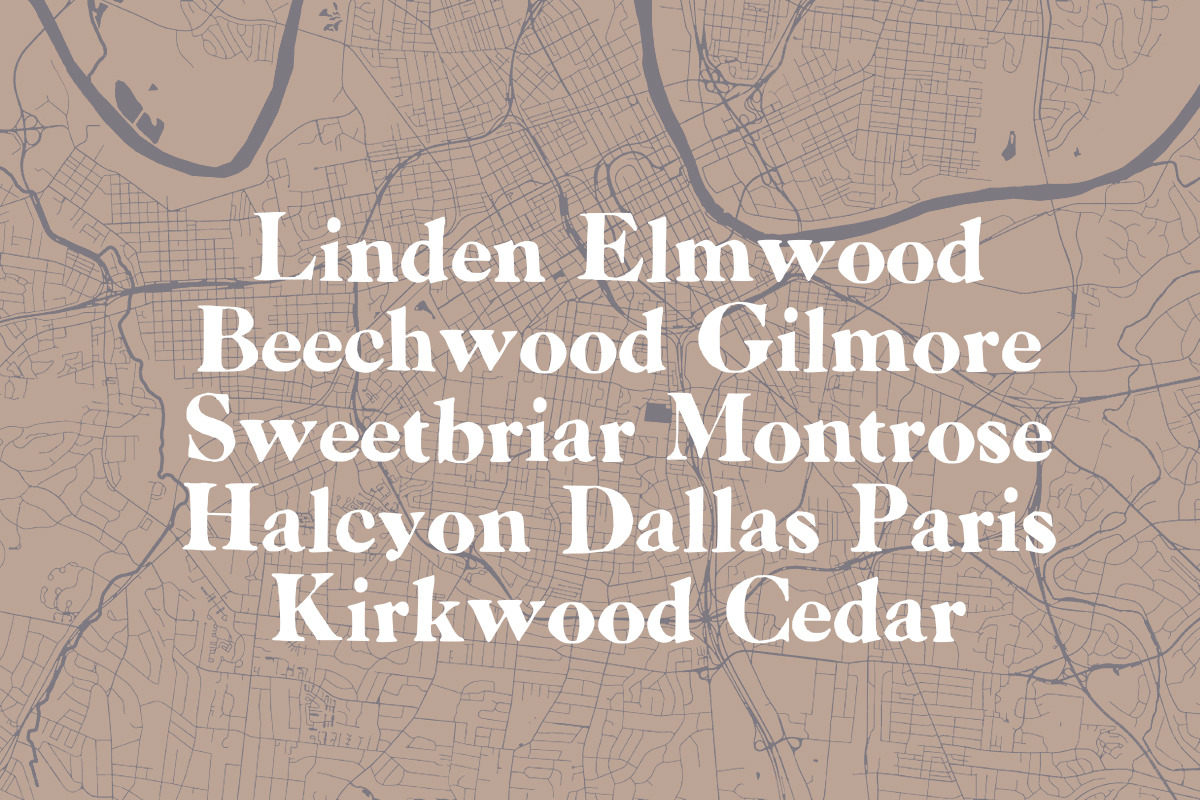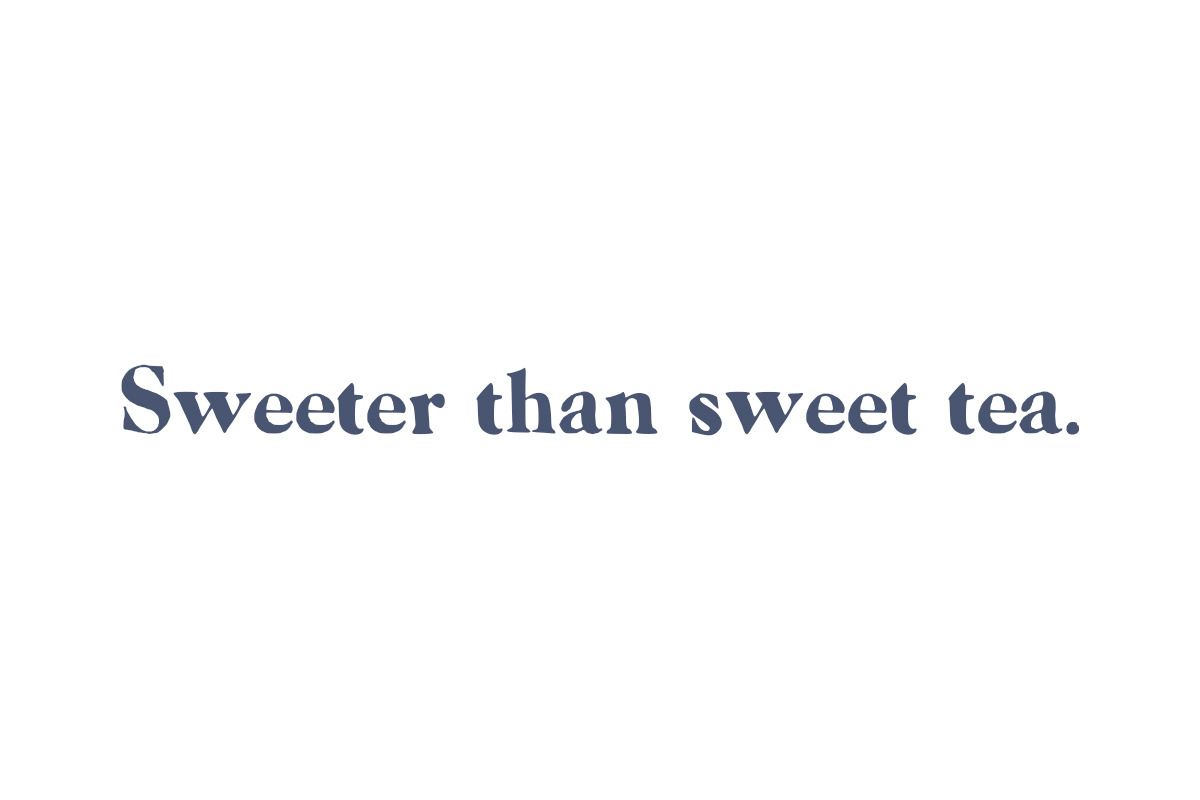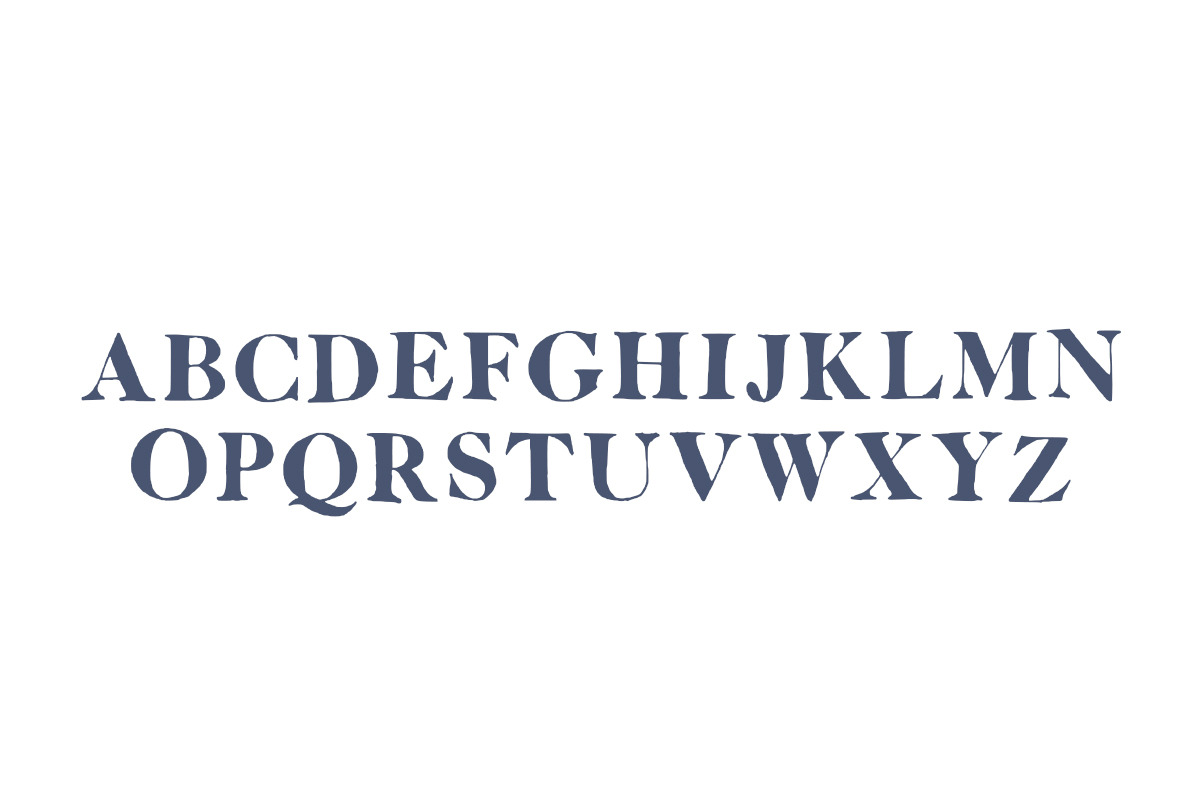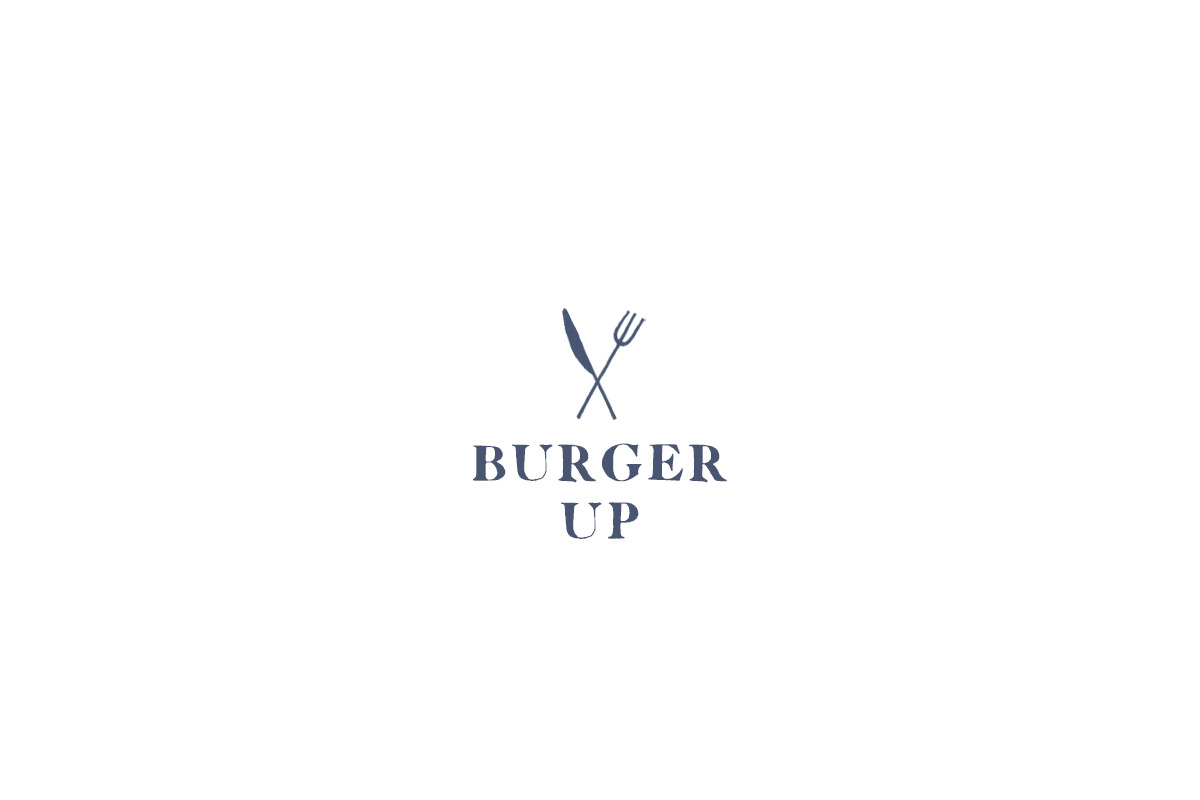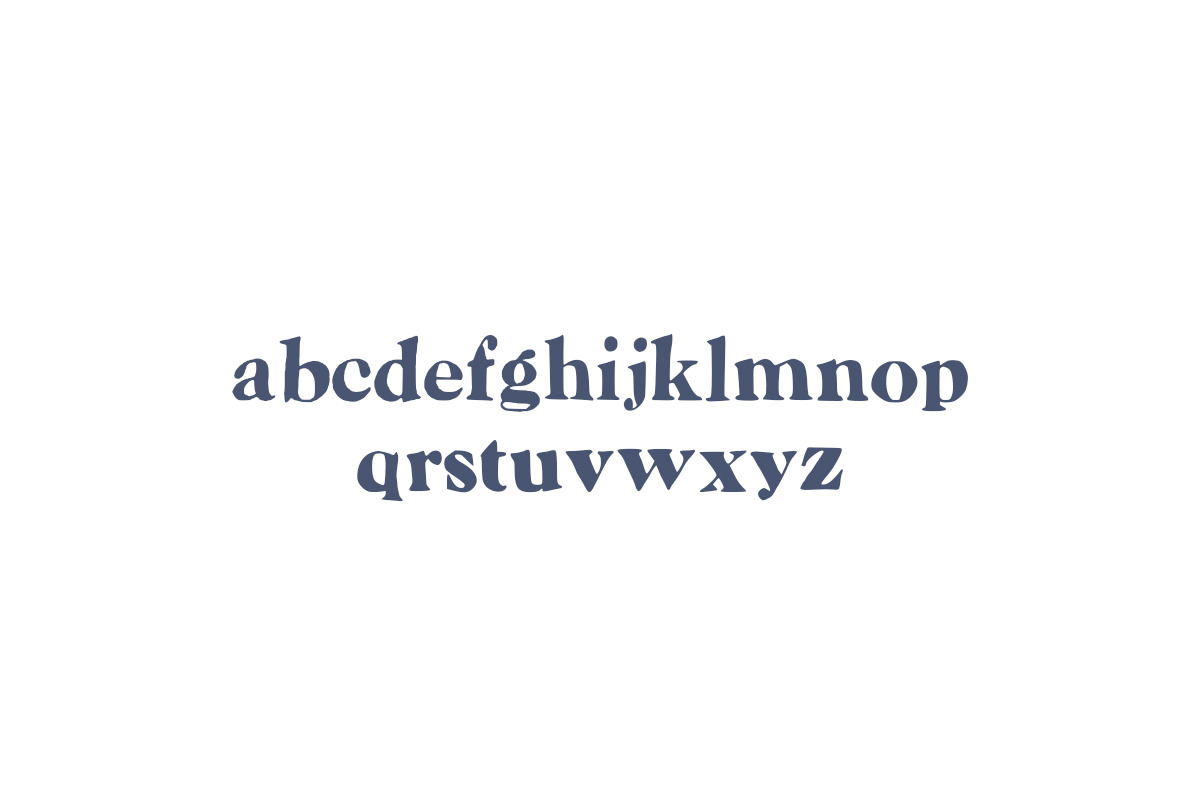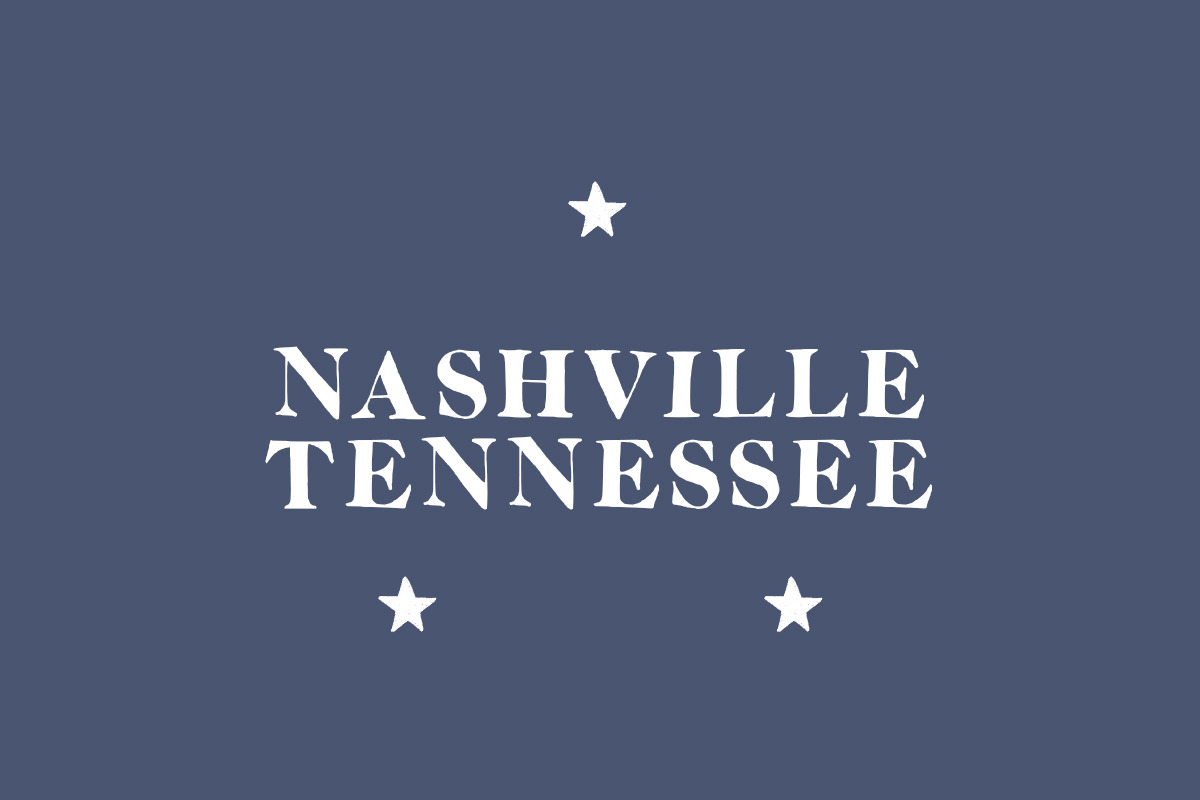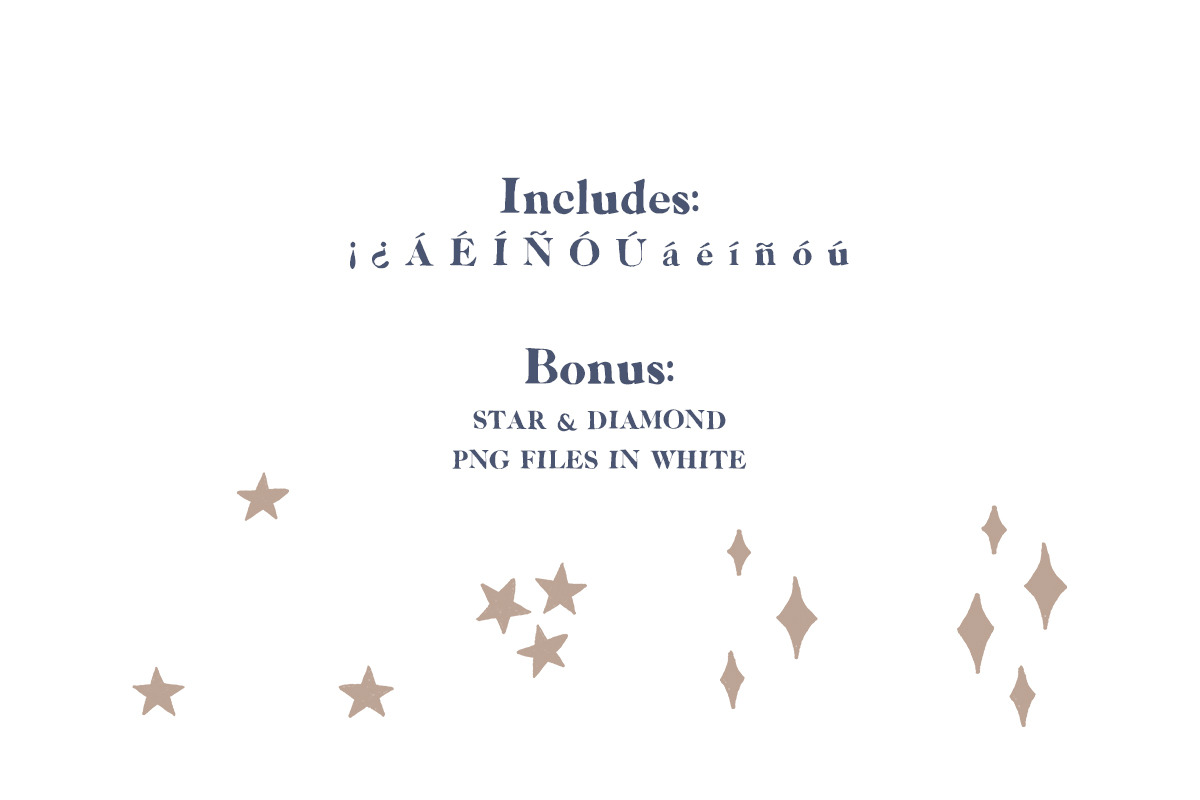
12th South Custom Serif Font
12th Avenue South - a destination and a font equally classy and quirky. This font has rich character without being too stuffy, and will give your next project a hand done feel (minus the hard work)! Pairs well with Scotty Script, shown above.
Includes: Capital and Lowercase Letters, Numbers, Punctuation. Spanish & English.
Bonus: Stars and Diamond Accents